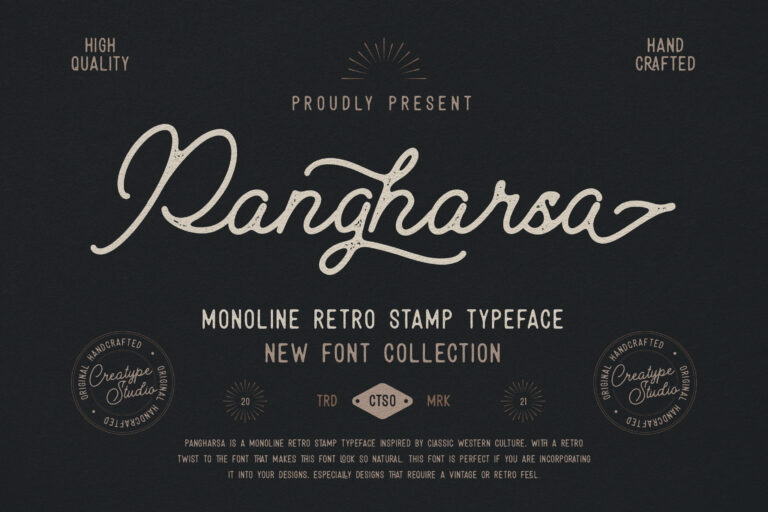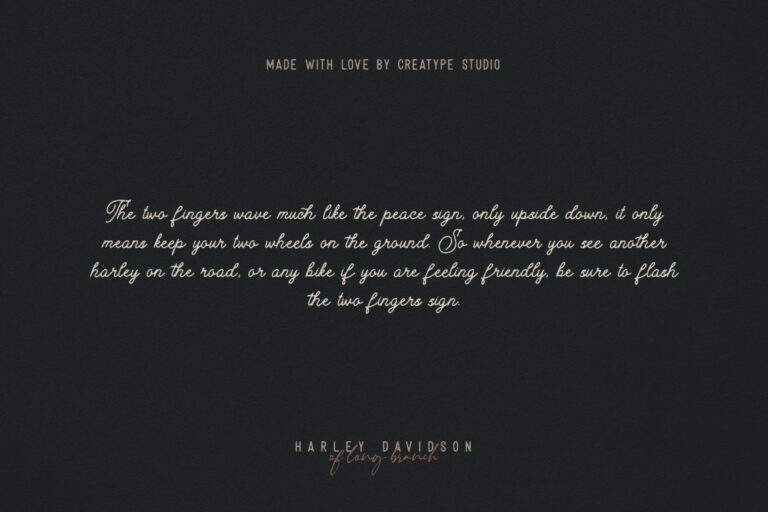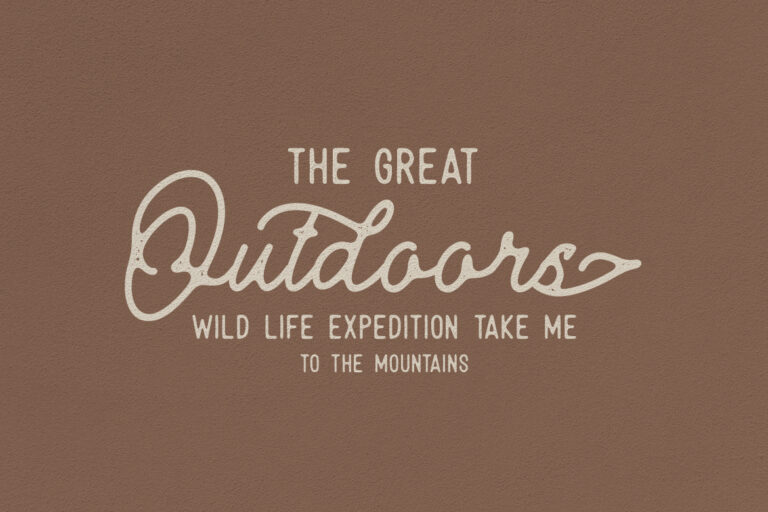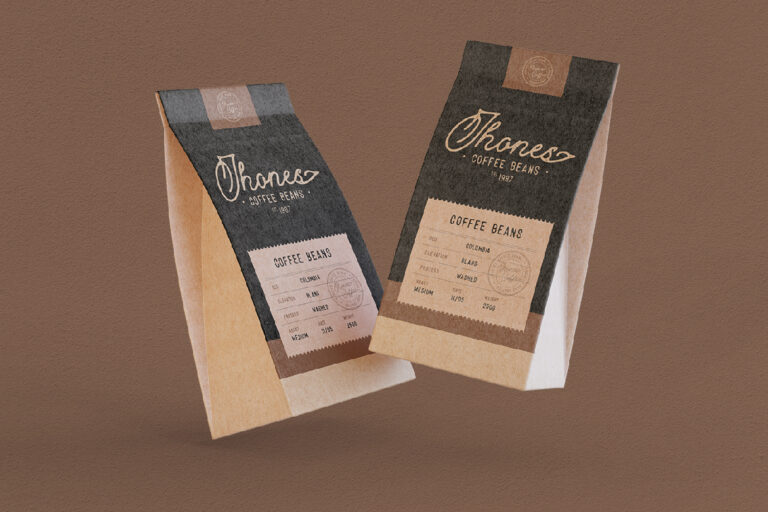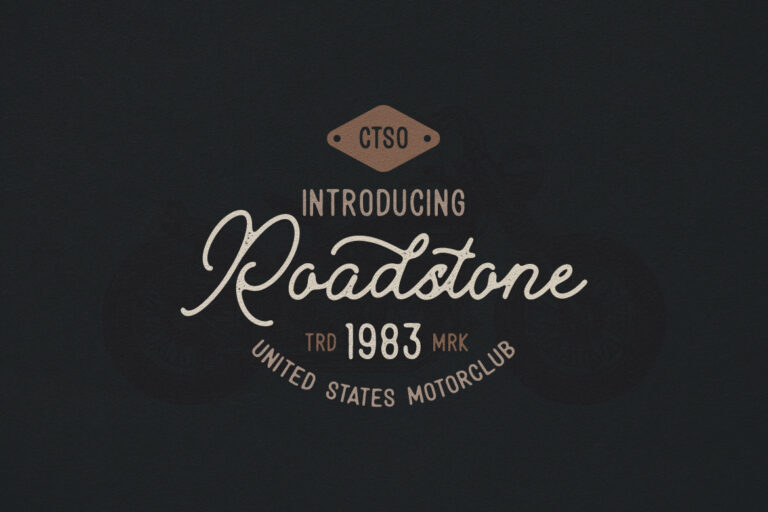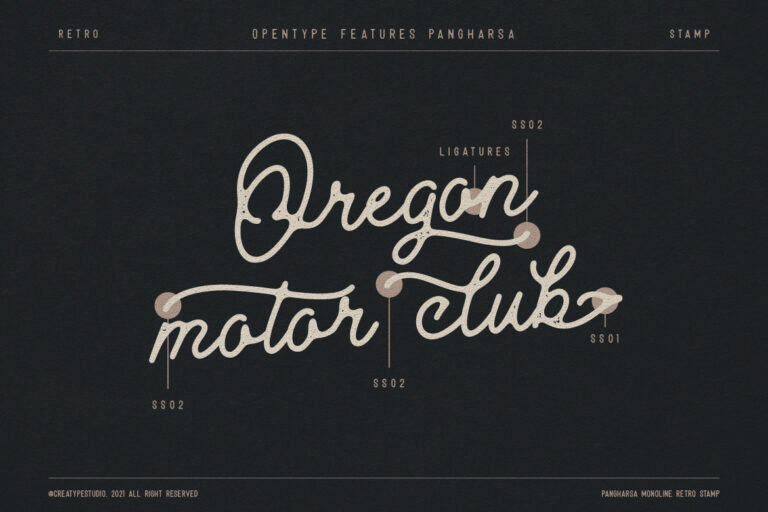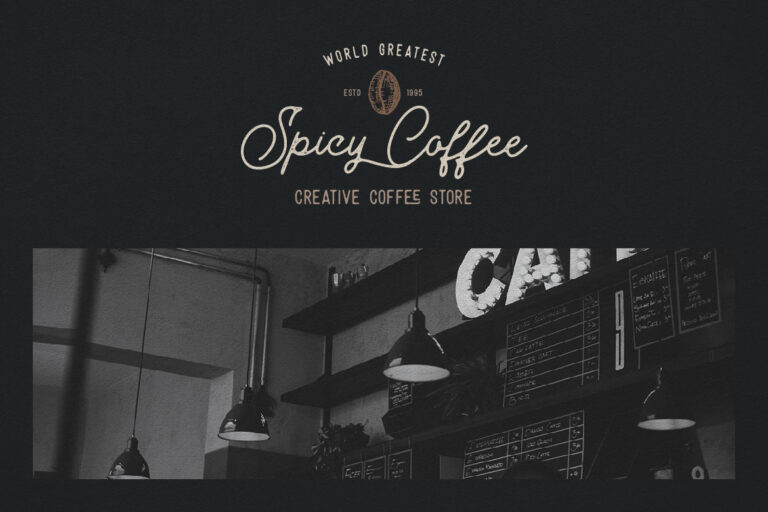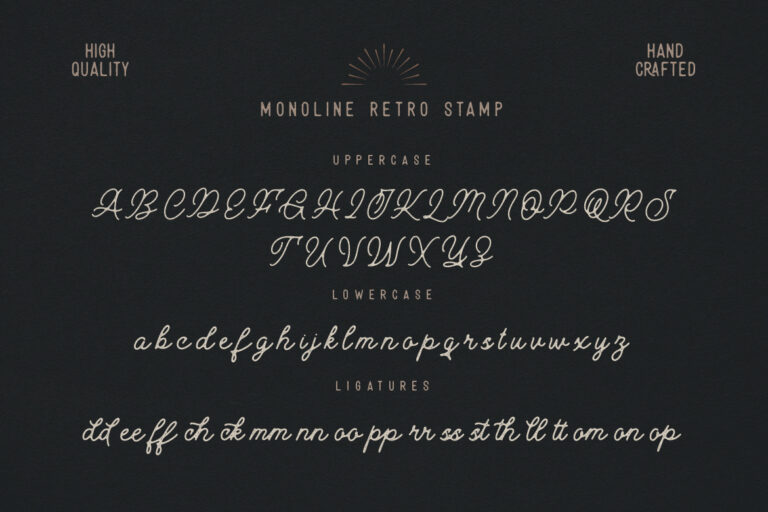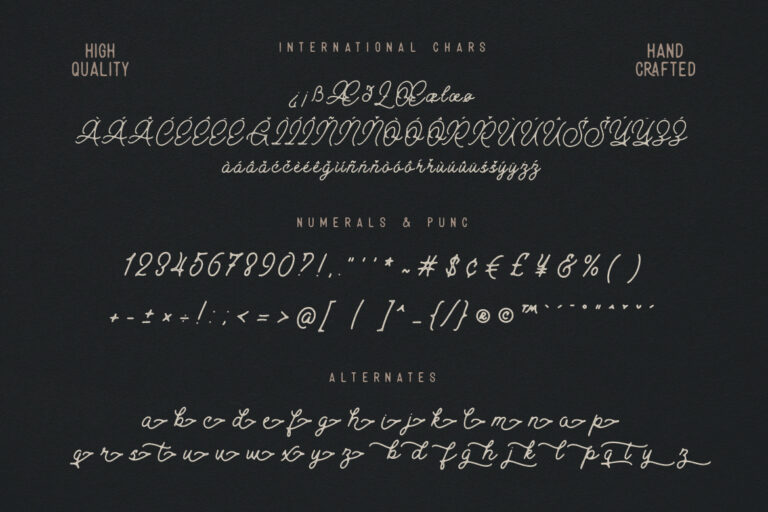
Pangharsa Monoline Retro Stamp
Pangharsa is a monoline retro stamp typeface inspired by classic western culture, with a retro twist to the font that makes this font look so natural. This font is perfect if you are incorporating it into your designs, especially designs that require a vintage or retro feel.
Pangharsa is perfect for branding projects, logo, wedding designs, social media posts, advertisements, product packaging, product designs, label, photography, watermark, invitation, stationery and any projects that need handwriting taste.
- Fonts include multilingual support for; Afrikaans, Albanian, Czech, Danish, Dutch, English, Estonian, Finnish, French, German, Hungarian, Italian, Latvian, Lithuanian, Norwegian, Polish, Portuguese, Slovak, Slovenian, Spanish, Swedish.